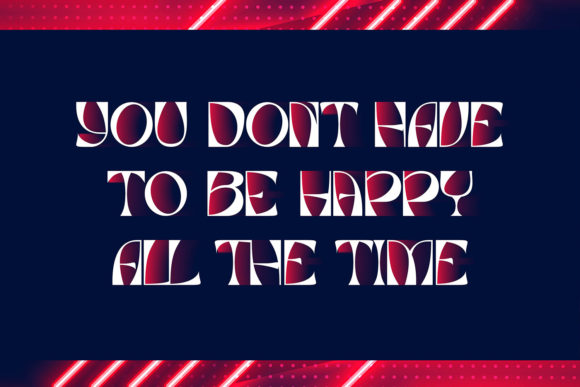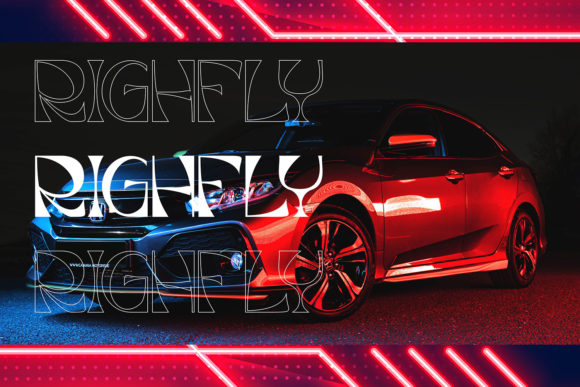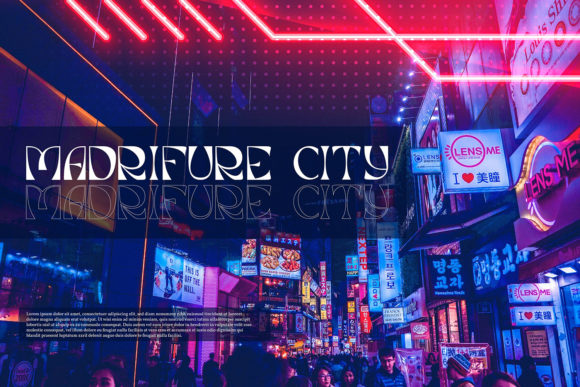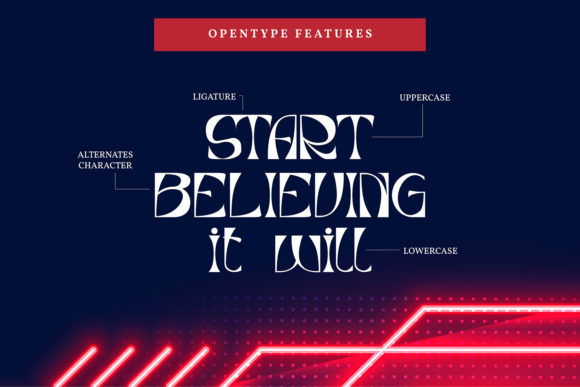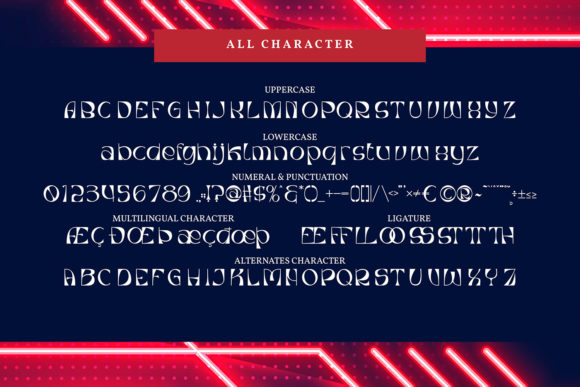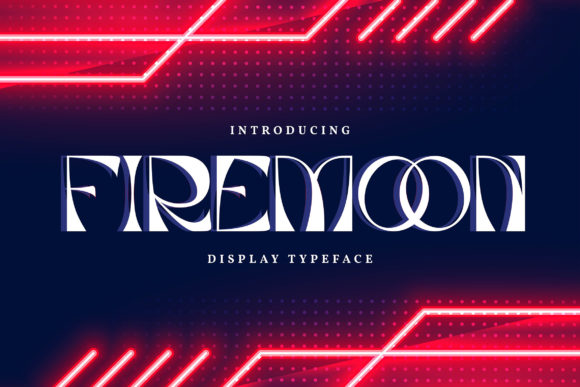
Introducing Firemoon Font: Elevate Your Designs with a Touch of Whimsy
Are you on the hunt for a font that adds a dash of cool, chic, and modern flair to your designs? Look no further than Firemoon Font, a stunning display font that’s sure to take your creations to the next level. In this article, we’ll dive into the world of Firemoon, exploring its unique features, benefits, and uses, and why it’s a must-have for designers and crafters alike.
What is Firemoon Font?
Firemoon Font is a modern, display font that’s designed to make a statement. With its sleek lines, elegant curves, and whimsical touches, this font is perfect for adding a touch of sophistication and style to any design project. Whether you’re working on a logo, branding materials, social media graphics, or craft projects, Firemoon Font is the perfect choice.
One of the standout features of Firemoon Font is its PUA (Private Use Area) encoding. This means that you can access all glyphs and swashes with ease, giving you complete creative control over your designs. With PUA encoding, you can effortlessly swap out characters, add flourishes, and experiment with different combinations to create unique and eye-catching designs.
Key Features of Firemoon Font
- Modern and Chic Design: Firemoon Font boasts a sleek, contemporary design that’s perfect for creating modern and stylish graphics.
- PUA Encoded: Easily access all glyphs and swashes to add a personal touch to your designs.
- Whimsical Touches: Add a dash of playfulness and whimsy to your designs with Firemoon Font’s elegant swashes and glyphs.
- Multipurpose: Use Firemoon Font for a wide range of design projects, from logos and branding to social media graphics and craft projects.
Benefits of Using Firemoon Font
So, why should you choose Firemoon Font for your design projects? Here are just a few benefits of using this amazing font:
- Elevate Your Designs: Add a touch of sophistication and style to your designs with Firemoon Font’s modern and chic aesthetic.
- Stand Out from the Crowd: With its unique and whimsical design, Firemoon Font is sure to help your designs stand out from the competition.
- Easy to Use: Firemoon Font is incredibly easy to use, even for designers who are new to working with fonts and glyphs.
- Versatile: Use Firemoon Font for a wide range of design projects, from digital graphics to print materials.
Who Can Benefit from Firemoon Font?
Firemoon Font is perfect for a wide range of designers and crafters, including:
- Graphic Designers: Add a touch of style and sophistication to your logo designs, branding materials, and social media graphics.
- Crafters: Use Firemoon Font to create beautiful and unique craft projects, such as handmade cards, scrapbooking, and DIY decor.
- Digital Artists: Experiment with Firemoon Font to add a touch of whimsy and elegance to your digital art and illustrations.
In conclusion, Firemoon Font is a must-have for designers and crafters looking to add a touch of cool, chic, and modern flair to their designs. With its PUA encoding, whimsical design, and ease of use, this font is perfect for a wide range of design projects. Whether you’re a seasoned designer or just starting out, Firemoon Font is sure to become a favorite in your font collection.